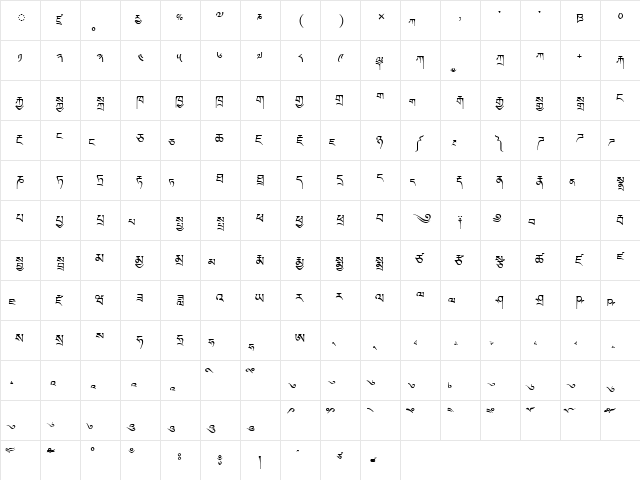
TCRC Youtso Regular
Design Context for TCRC Youtso Typeface
TCRC Youtso takes a measured approach to typography — its balanced proportions and neutral character make it a reliable workhorse for both digital and print work.